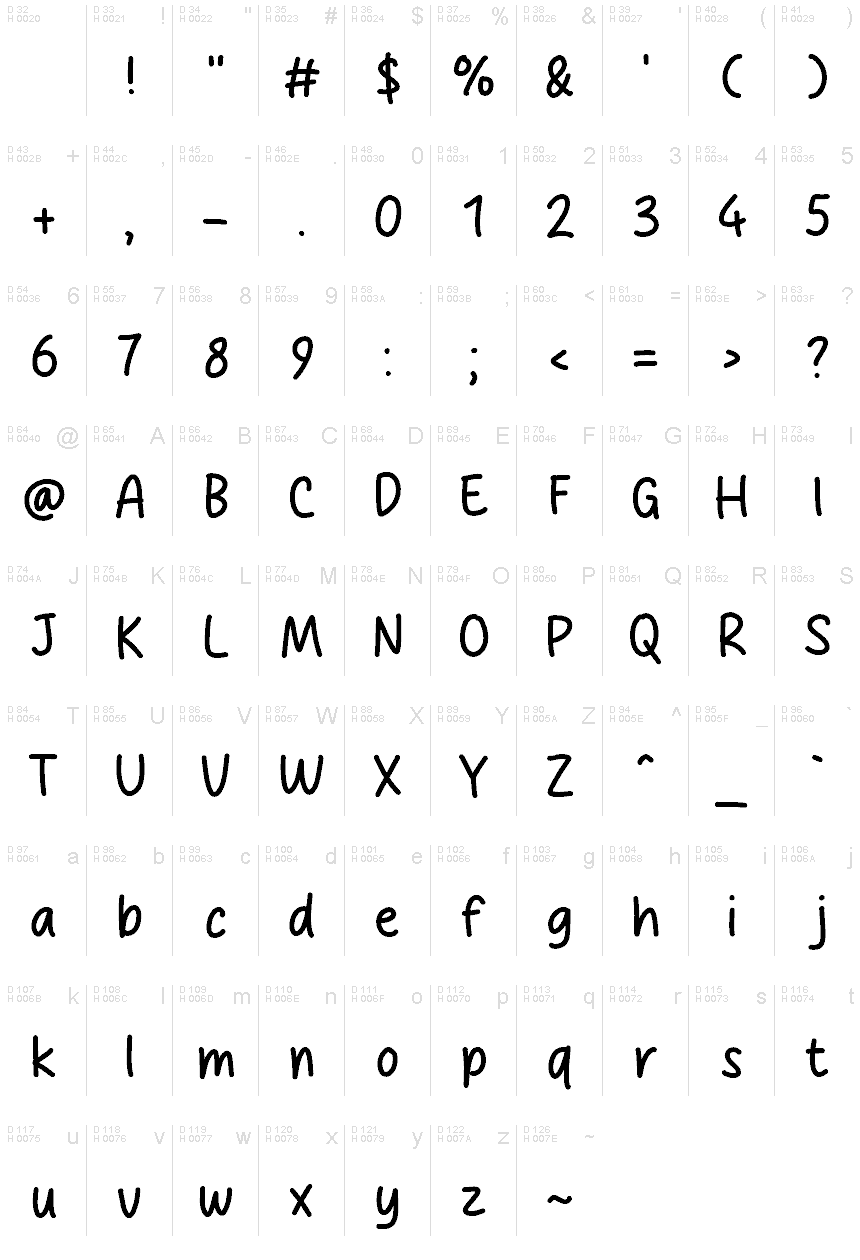
Cerayon
Cerayon font by MJType is a friendly, casual handwritten font with an approachable vibe and modern aesthetic. The letters appear as if written with a felt pen, giving them the familiar imperfections of a truly natural style. The versatile typeface is perfect for young audiences and can become the main attraction even when used in small weights.
Being pleasurable to look at, this free handwritten font highlights personal projects such as painted T-shirts, children’s books covers and illustrations, logos, cooking books or magazines, journals or online postings. Its usage in branding and packaging is also encouraged.